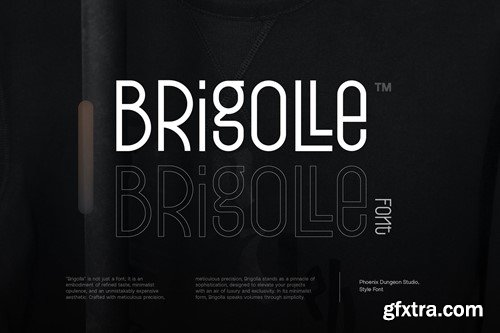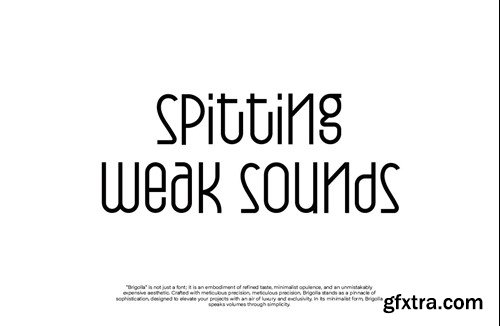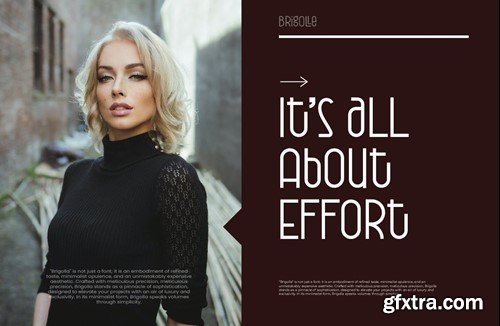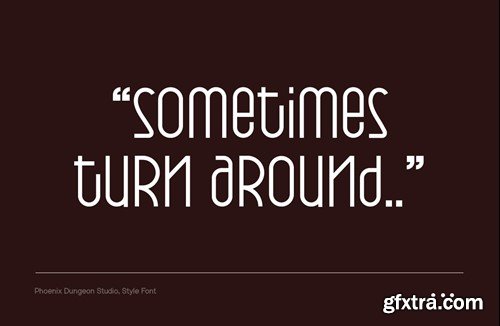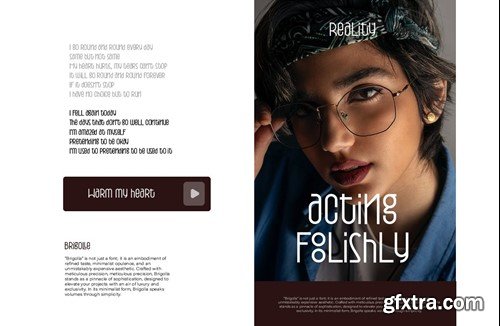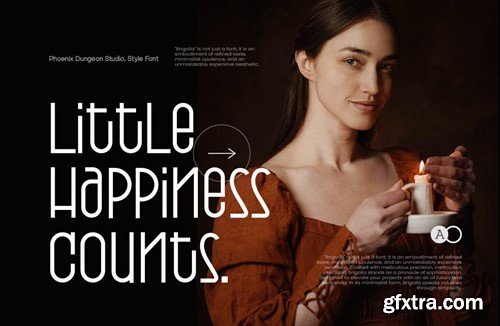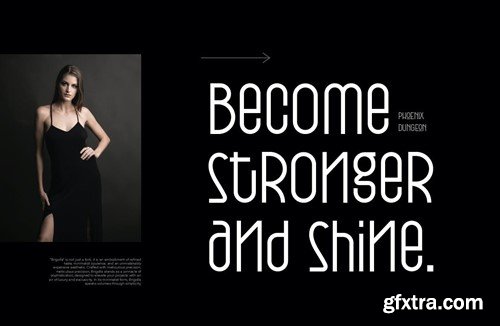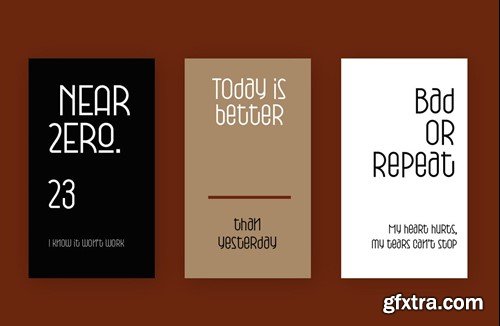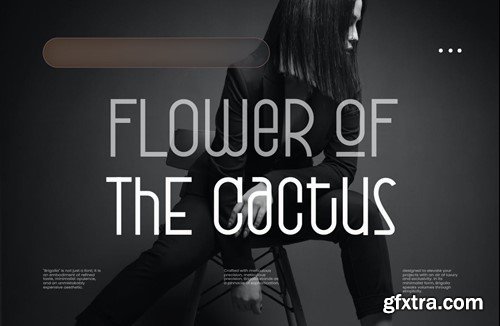
Brigolle Font C4LMY45
Brigolle Font
Brigolle is not just a font; it is an embodiment of refined taste, minimalist opulence, and an unmistakably expensive aesthetic. Crafted with meticulous precision, Brigolle stands as a pinnacle of sophistication, designed to elevate your projects with an air of luxury and exclusivity. In its minimalist form, Brigolle speaks volumes through simplicity. What’s in the package : Thank you